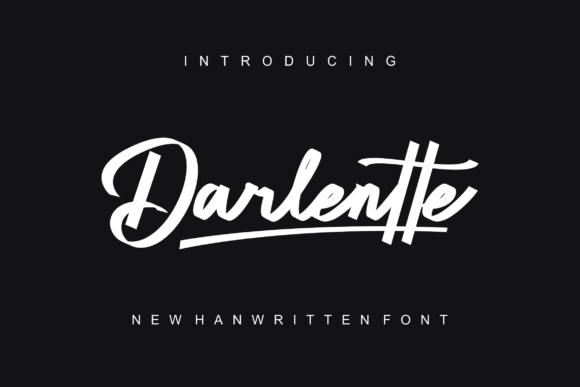
Behold Darlentte Font, the remarkable script font that sets the standard for esports logos. Crafted by the acclaimed cozzdesign0, Darlentte embodies the essence of authenticity and artistry. Its delicate strokes and flowing curves are not just letters; they are the embodiment of creativity, ready to transform your ideas into masterpieces.
Immerse yourself in the world of esports, where Darlentte reigns supreme. Envision your logo adorned with this exquisite font, commanding attention with its unique style. Darlentte's natural and elegant flair captures the essence of competitive spirit, propelling your team to victory.
Transcend boundaries with Darlentte, the font that transcends limitations. Its adaptability knows no bounds, effortlessly enhancing social media posts, website designs, and even merchandise. Unleash your inner artist and let Darlentte elevate your creative vision to unprecedented heights.
Step into the spotlight with Darlentte, the font that empowers you to forge a lasting impression. Its meticulously crafted characters leave an indelible mark on the minds of your audience. Prepare to witness the awe-inspiring transformation as your designs metamorphose into captivating works of art, captivating all who lay their eyes upon them.
Embrace the allure of Darlentte, the font that ignites passion and fuels imagination. It's more than just a font; it's a gateway to a realm of boundless creativity. Download Darlentte today and embark on a journey of artistic exploration, leaving an indelible legacy in the world of esports.